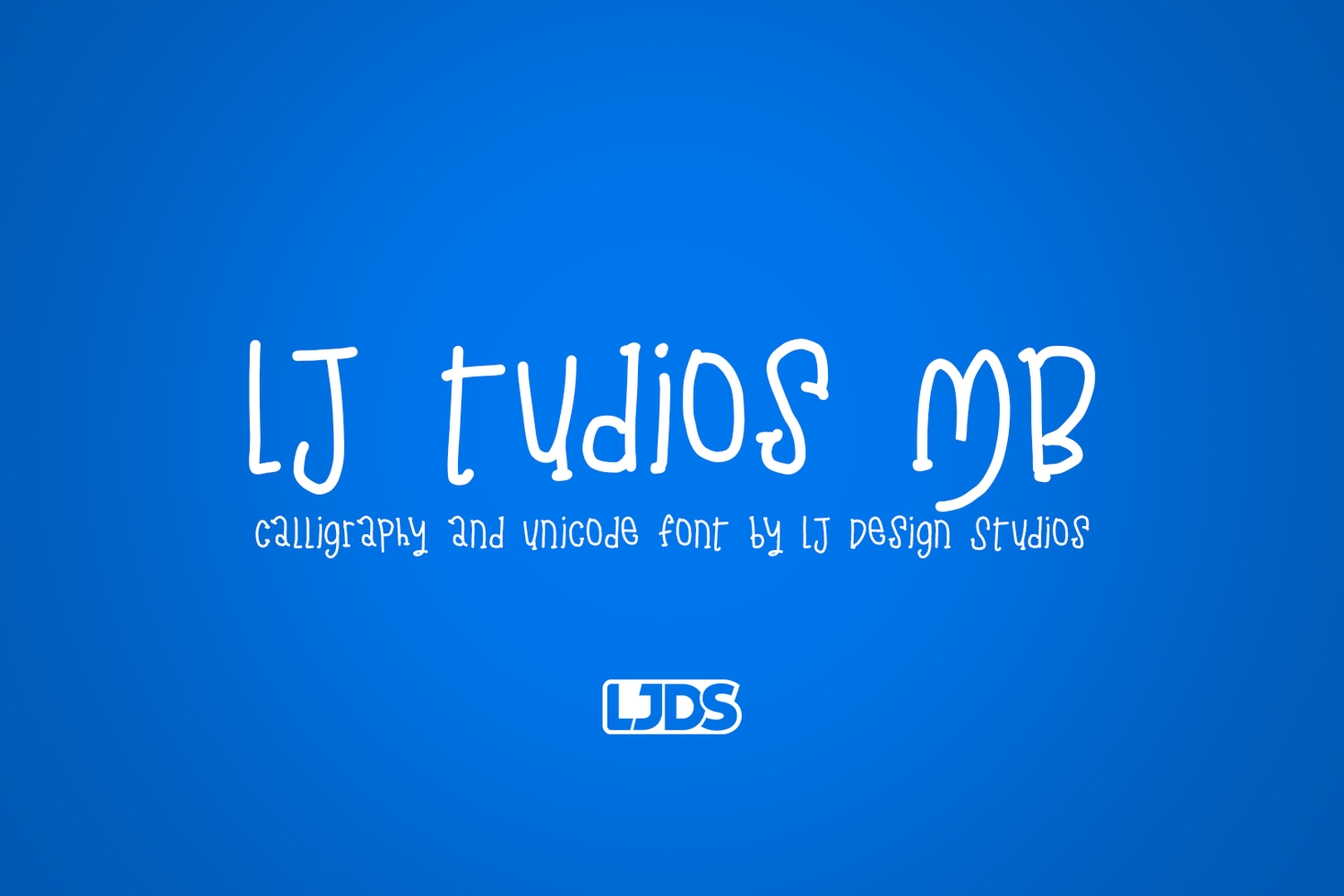
LJ Studios MB
LJ Studios MB is a hand-drawn calligraphic typeface with a fresh, expressive style, designed to convey warmth and personality. It supports Latin, Cyrillic, and Thai scripts, offering broad Unicode coverage—ideal for multicultural projects, editorial design, creative branding, and visual communication with a human, spontaneous character.